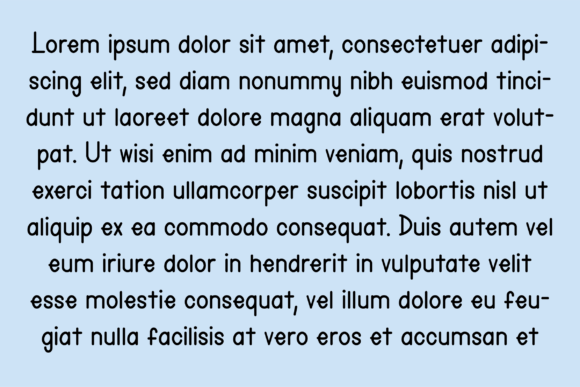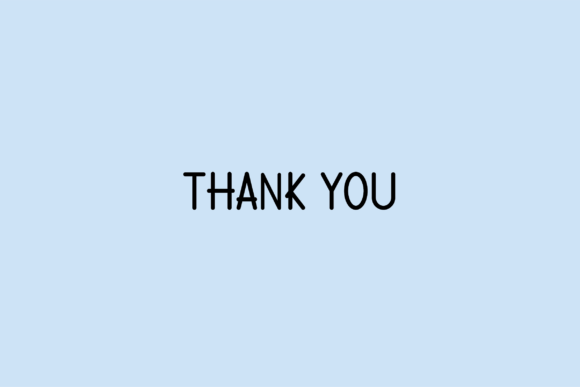
Adding a Personal Touch to Your Designs
Have you ever stared at a blank canvas, desperately searching for the perfect font to bring your design to life? It’s a moment we’ve all been there – the one where creativity stalls, and all we need is that spark to set our imagination ablaze.
Enter the Backpack Font, a charming and approachable handwritten typeface designed to add a touch of warmth and personality to your projects. With its whimsical and quirky charm, this font is the perfect addition to any design, be it a logo, wedding invitation, or magazine cover.
For designers, the Backpack Font is a valuable asset, offering a unique and stylish way to express their creativity. Whether you’re working on a new brand identity or a promotional campaign, this font is sure to brighten up your designs and leave a lasting impression.
Key Features of Backpack Font
- Font Family: Backpack Font is a unique sans-serif font family designed specifically for digital and print use.
- Character Count: The font family includes over 1,000 characters, including uppercase and lowercase letters, numbers, and punctuation.
- Size and Resolution: Backpack Font is designed to work well at font sizes ranging from 8 to 48 points, and is optimized for resolutions up to 300 DPI.
- Unique Characteristics: The font features a distinctive rounded edge and a subtle flair at the terminals, giving it a friendly and approachable feel.
Backpack Font Review
Overall, I think Backpack Font has some great qualities, but it also has its limitations. ✨
- The font’s playful, adventurous vibe really shines through in headings and titles.
- It’s great for use in travel and outdoor-related brands.
- Backpack Font is highly legible, even at smaller font sizes.
- ⚠️ The font can be quite busy and overwhelming when used in large blocks of text.
- ⚠️ It may not be the best choice for brands that want a more formal or professional look.
- ⚠️ Some characters may not be as well-designed as others, which can affect the font’s overall cohesion.
Overall, I think Backpack Font is a solid choice for the right projects, but it may not be the best fit for every design. With some careful consideration and balance, it can be a great way to add some personality and flair to your designs.
Backpack Font is a versatile font that can be used in a variety of projects, including:
- Travel and adventure-themed designs.
- Outdoor and sports-related projects.
- Typography-based art and designs.
Remember to adjust the font size and style to suit your project’s needs, and experiment with different combinations of colors and textures to create a unique look.
Alternatives to Backpack Font for Designers
Nunito Font
Nunito is a sans-serif font designed by Vernon Adams. It is a modern and clean font suitable for various design projects, including logos, titles, and body text. Nunito is a good alternative to Backpack Font as it offers a similar clean and minimalist aesthetic. However, Nunito has a more rounded and friendly feel, making it more suitable for designs that require a softer tone.
Lato is a sans-serif font designed by Łukasz Dziedzic. It is a highly legible font suitable for both digital and print designs. Lato has a strong and modern feel, making it a good alternative to Backpack Font for designs that require a bold and attention-grabbing look. However, Lato has a more geometric feel, which may not be suitable for designs that require a more organic look.
Montserrat is a sans-serif font designed by Julieta Ulanovsky. It is a modern and geometric font suitable for urban and modern designs. Montserrat has a strong and bold feel, making it a good alternative to Backpack Font for designs that require a lot of text and need to be easy to read. However, Montserrat has a more industrial feel, which may not be suitable for designs that require a more natural look.
Open Sans is a sans-serif font designed by Steve Matteson. It is a highly legible font suitable for digital designs, including websites and mobile apps. Open Sans has a clean and modern feel, making it a good alternative to Backpack Font for designs that require a simple and easy-to-read look. However, Open Sans has a more neutral feel, which may not be suitable for designs that require a lot of